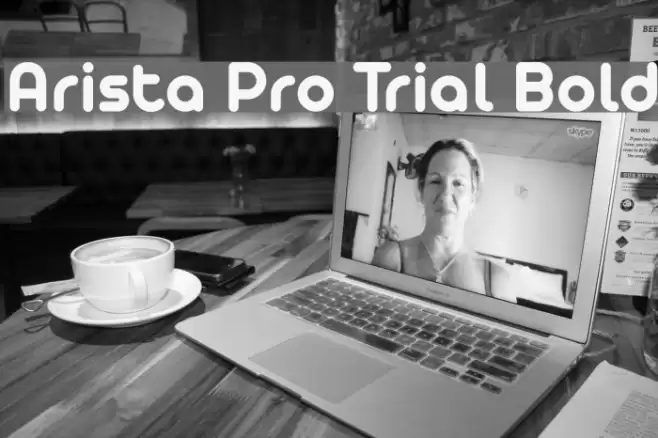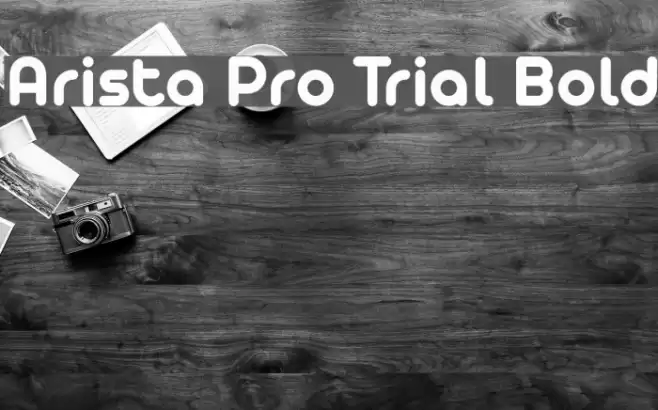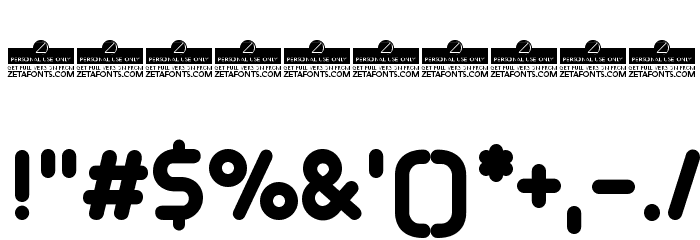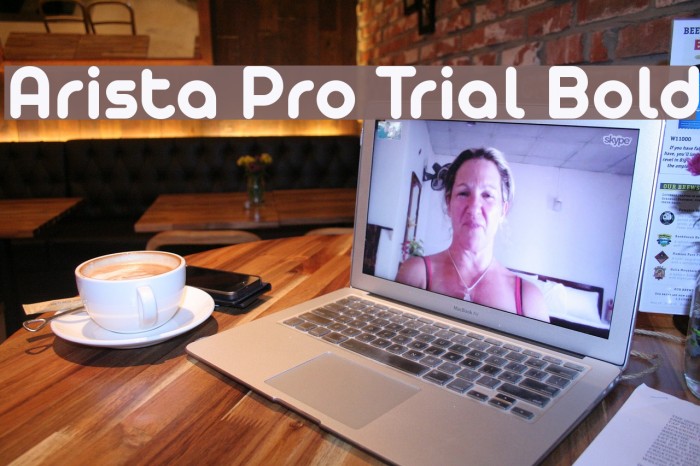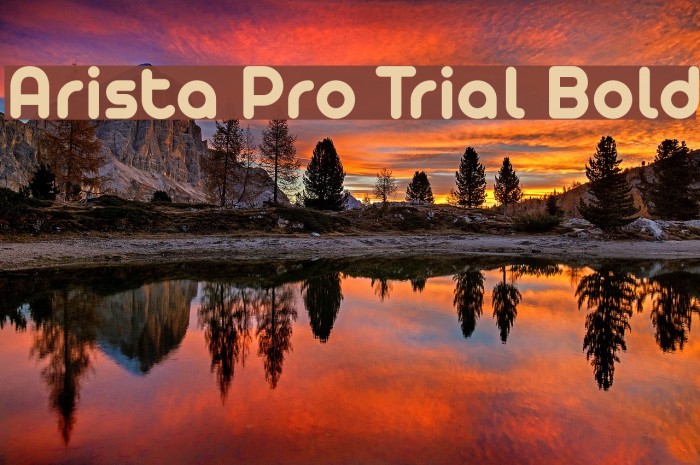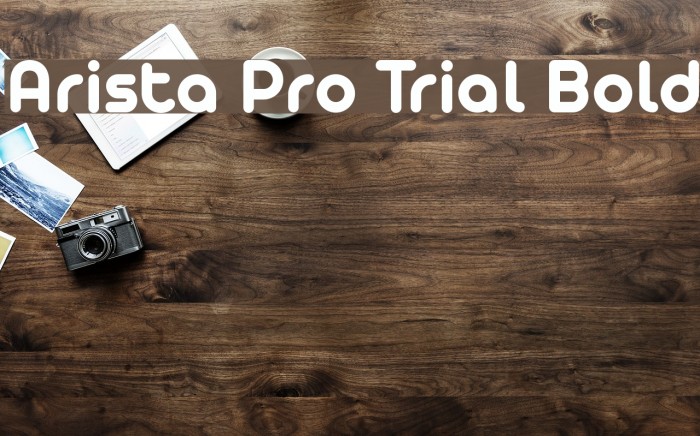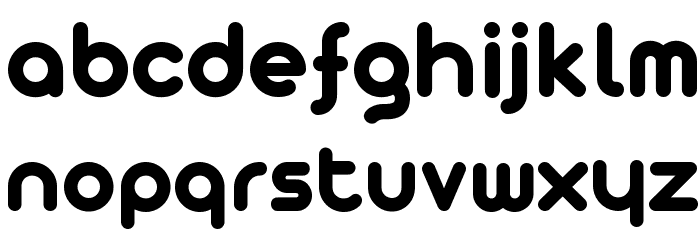
Arista Pro Trial Bold Font
Arista Pro Trial Bold Description
This font features a bold and rounded style with smooth, continuous lines that create a friendly and approachable appearance. The characters are evenly weighted, providing a consistent and harmonious look across both uppercase and lowercase letters. The rounded edges and uniform stroke width give it a modern and playful feel, making it suitable for a variety of design applications. The font maintains clarity and readability, even at smaller sizes, due to its well-defined shapes and balanced proportions. Its unique style is further emphasized by the rounded terminals, which add a touch of softness and warmth to the overall design.
A bold, rounded font with smooth lines and a modern, playful style from Uncategorized fonts.
- Proposed Projects: Ideal for branding, packaging, children's books, and playful advertising campaigns.